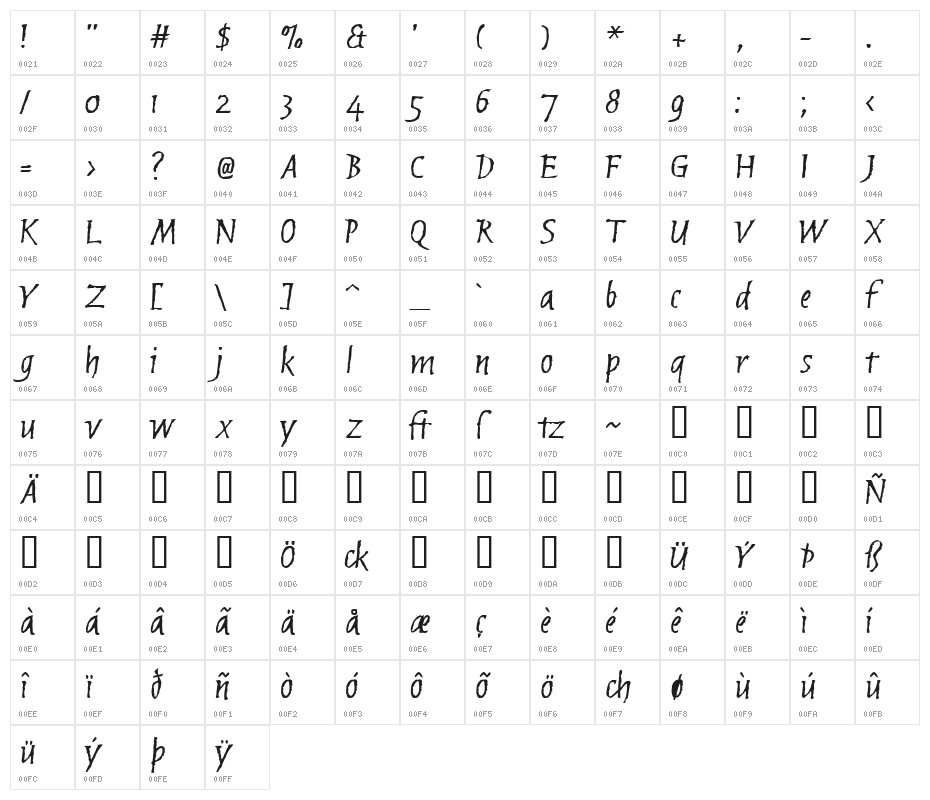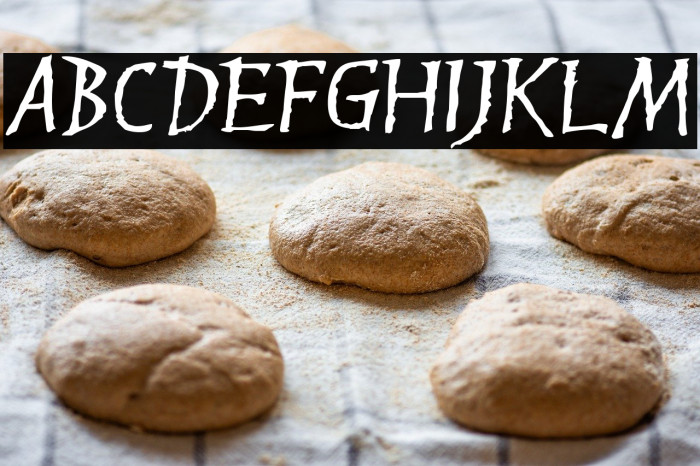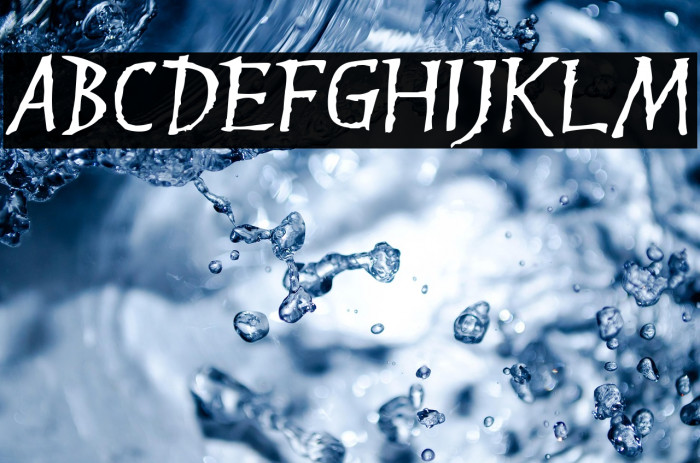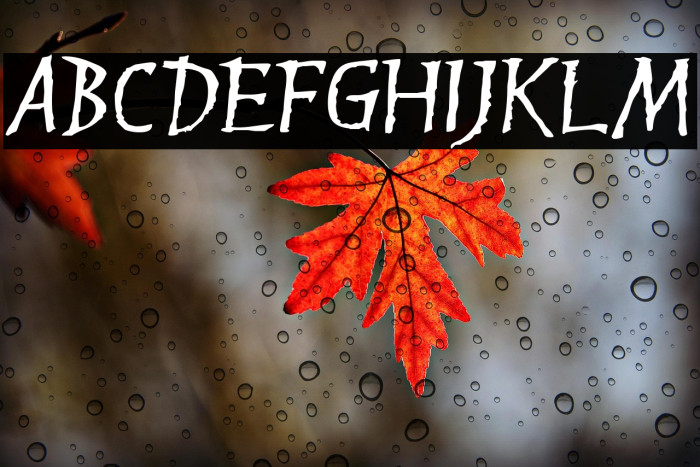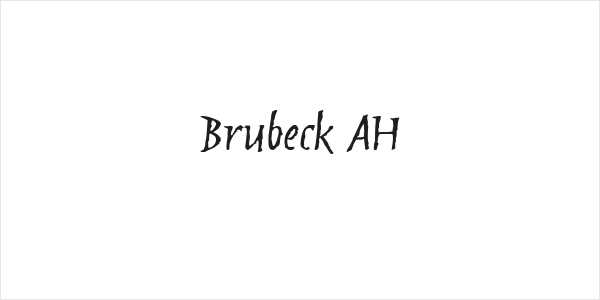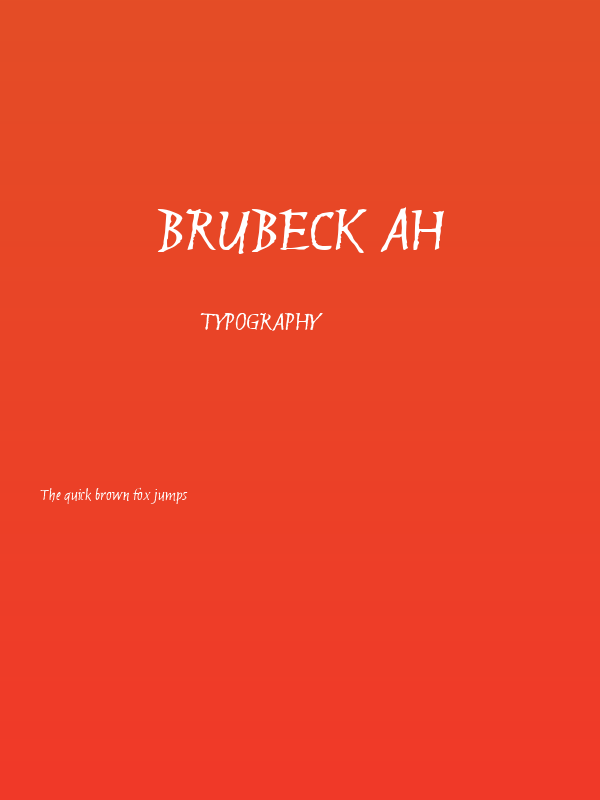
Brubeck AH Font
Brubeck AH Description
This font exhibits a distinctive, hand-drawn style with irregular strokes and a slightly rough texture, giving it an organic and artistic feel. The uppercase letters are bold and dynamic, with varying line thicknesses that add character and movement. The lowercase letters maintain a consistent style, complementing the uppercase with their own unique flair. Numbers and special characters follow the same aesthetic, ensuring a cohesive look across all elements. The overall appearance is both expressive and versatile, making it suitable for creative and informal projects.
| Overall Style | Artistic |
| Proposed Projects | Ideal for artistic projects, creative branding, informal invitations, and unique poster designs. |